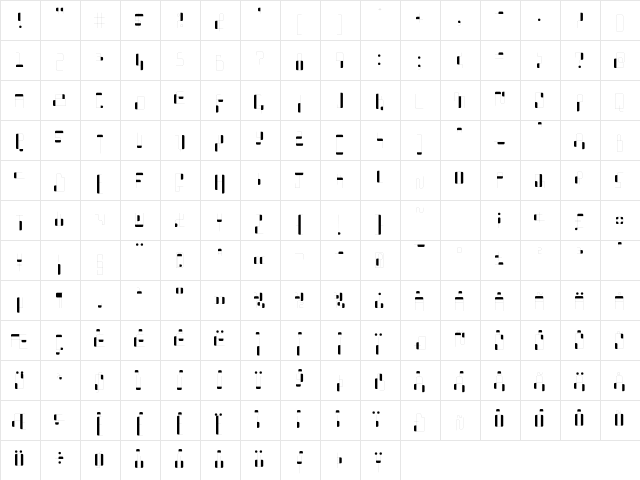
What A Stupid Name Regular
Design Context for What A Stupid Name Typeface
What A Stupid Name is a composed and adaptable typeface that performs quietly and consistently across a wide range of design contexts.